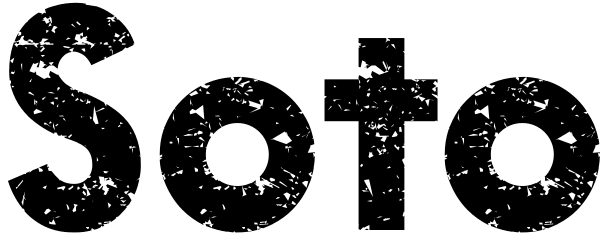
Soto
A grungy, blocky, sans-serif font, Soto has one goal: get the message across. Saying it plain and simple, in a way that no-one can misunderstand, Soto’s very slight angles and thick style carry a weight and impact that make it stand out. With the...